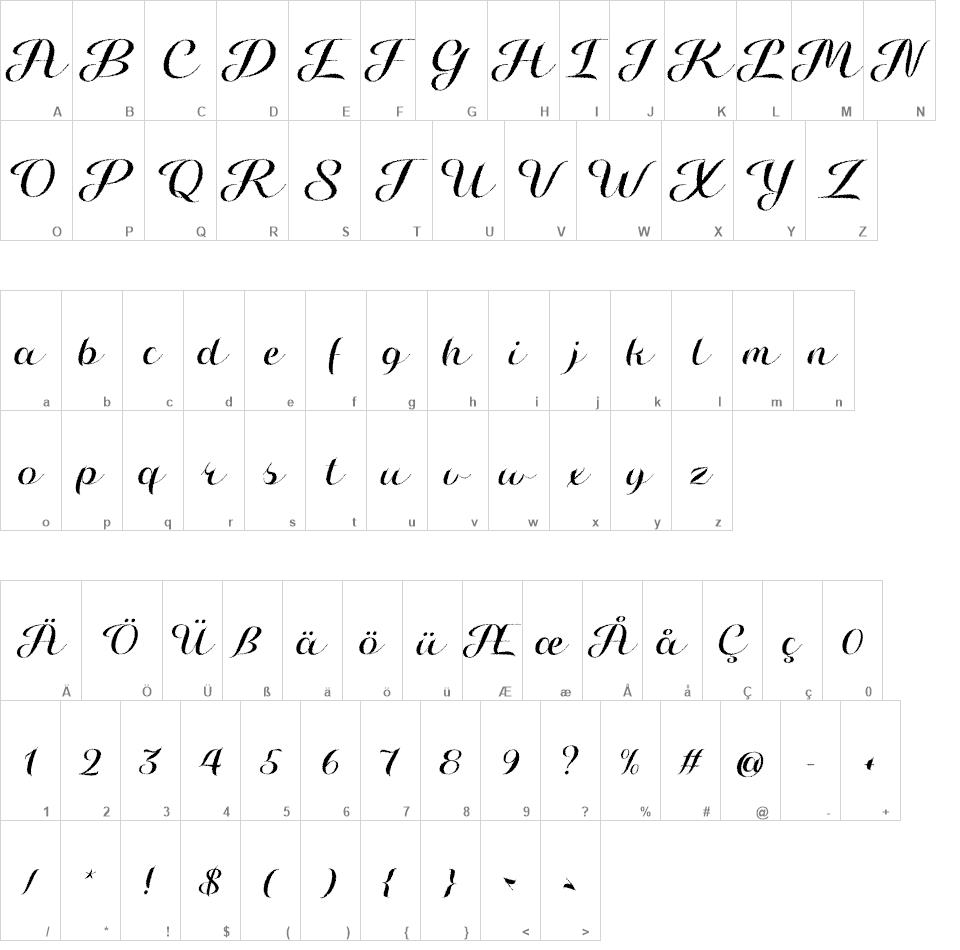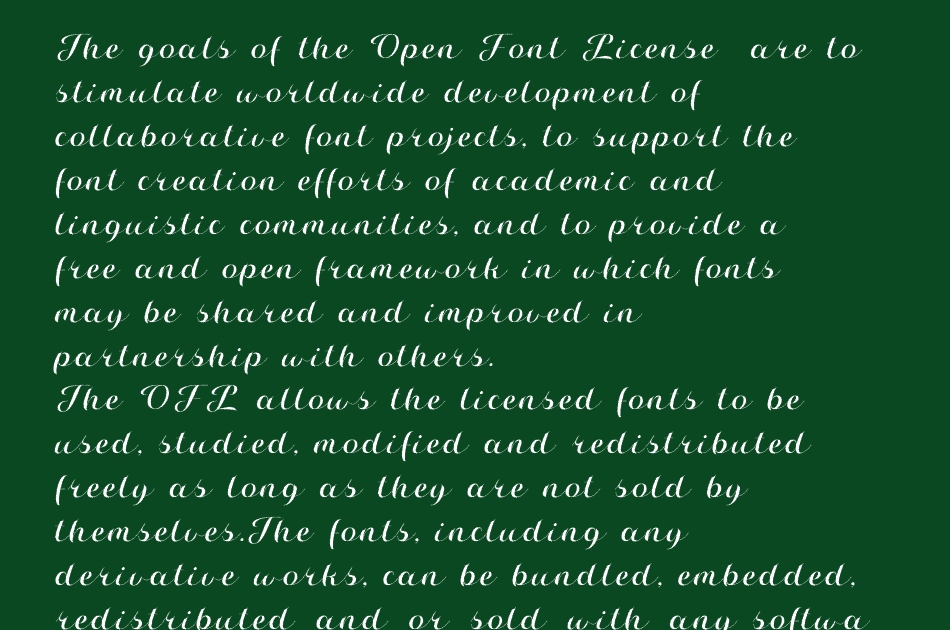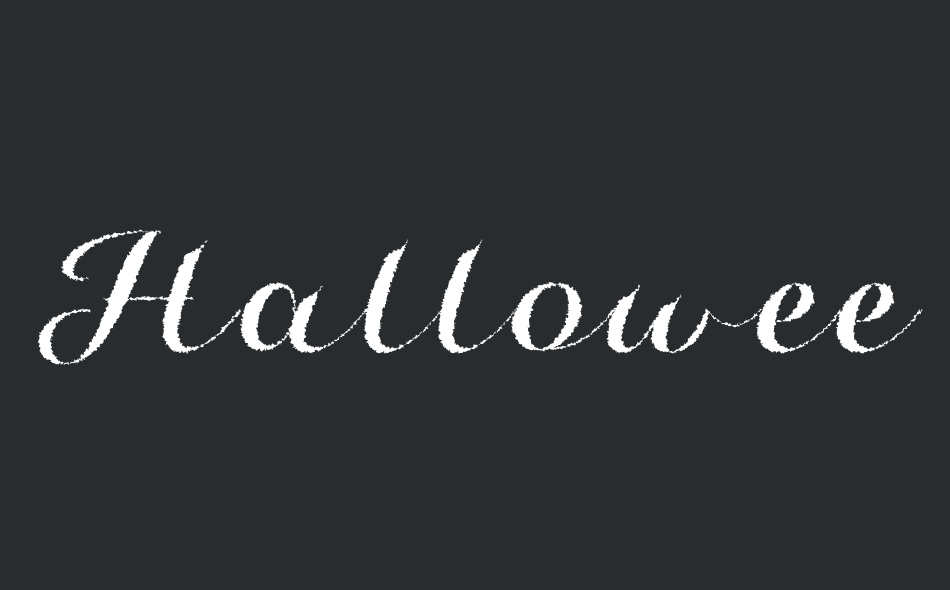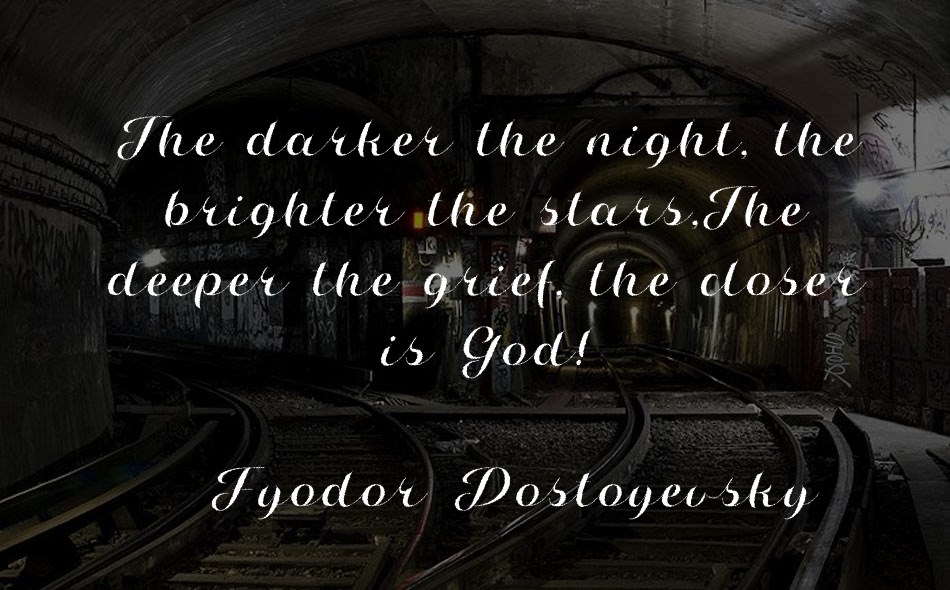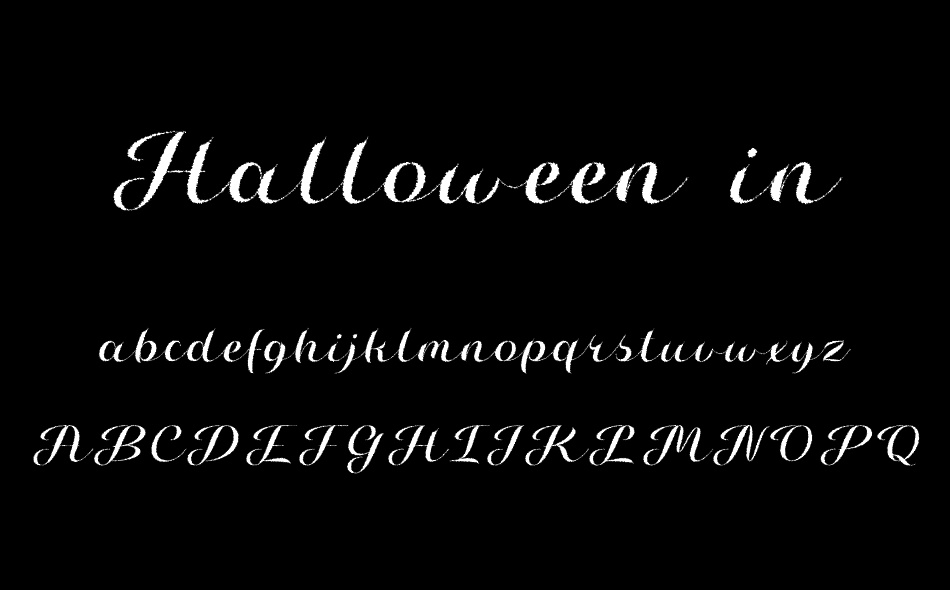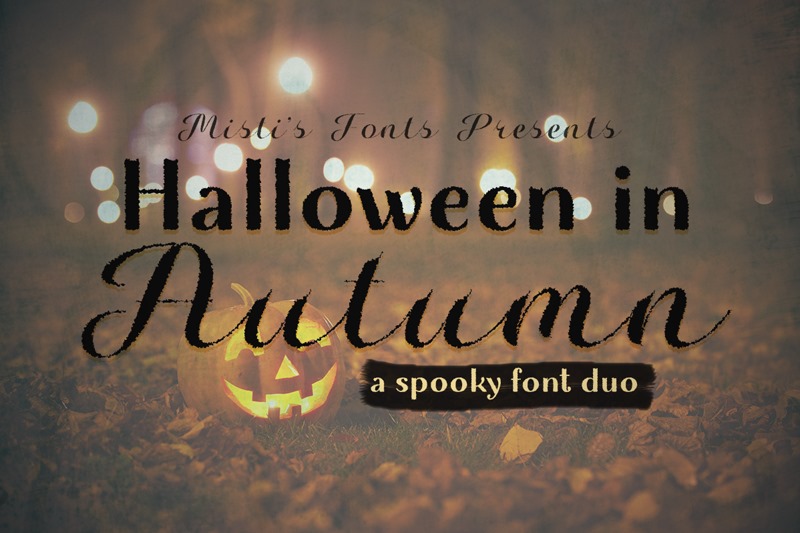
Halloween in Autumn Sans font
Halloween in Autumn is a fun and spooky font duo that is perfect for your Fall projects! You can use the fonts together or separately, adding variety to your designs!